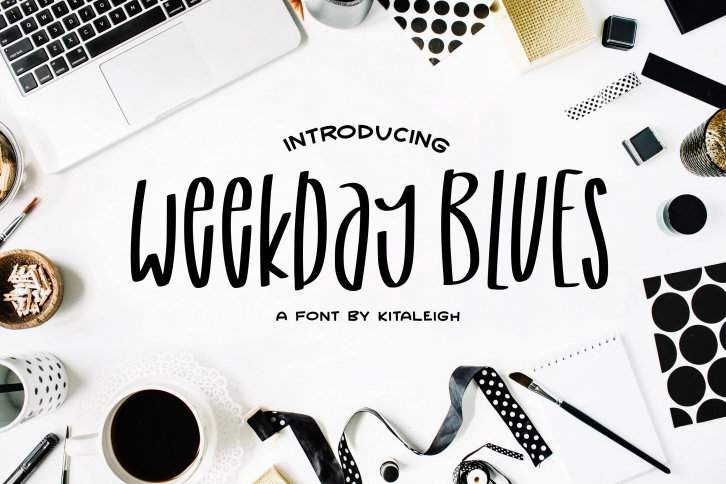
Weekday Blues is a trendy and unique font with an authentic style. It was designed by Kitaleigh and it's a great choice for creative people who need such a font. It was released on January 3, 2020 and the file size is 4.73 MB. Weekday Blues will add an organic vibe to any design idea!